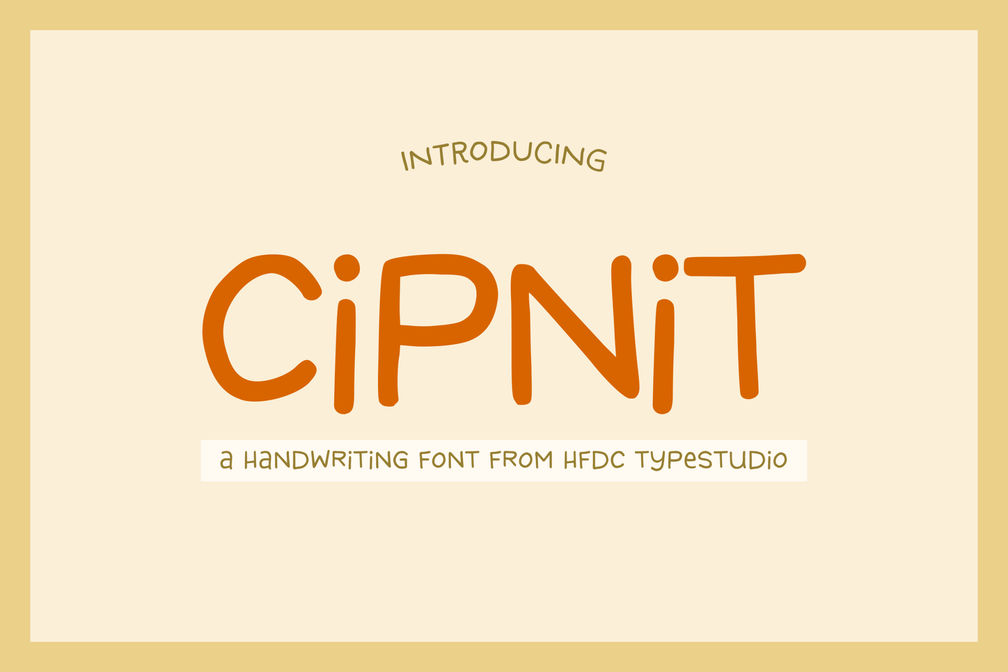
Cipnit Handwriting Sans Serif
The font Cipnit is a playful and quirky typeface that exudes a casual, handwritten charm. With its uneven lines and whimsical curves, Cipnit brings a sense of fun and spontaneity to any project. It’s perfect for designs that require a personal touch, such as children’s books, greeting cards, and creative posters. The font features both uppercase and lowercase letters, making it versatile for various text combinations. Cipnit captures the essence of carefree creativity, offering a unique way to add personality and warmth to your typography.
• Style : Light, Regular and Bold,
• Uppercase and lowercase,
• Alternate styles,
• Number and Punctuation,
• Multilingual Support.